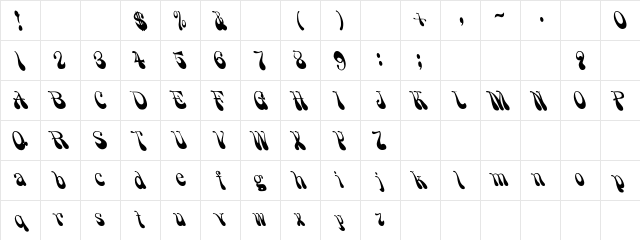
Grooovvelic Regular Free Font
Grooovvelic Regular
Design Context for Grooovvelic
Grooovvelic is a composed and adaptable typeface that performs quietly and consistently across a wide range of design contexts.